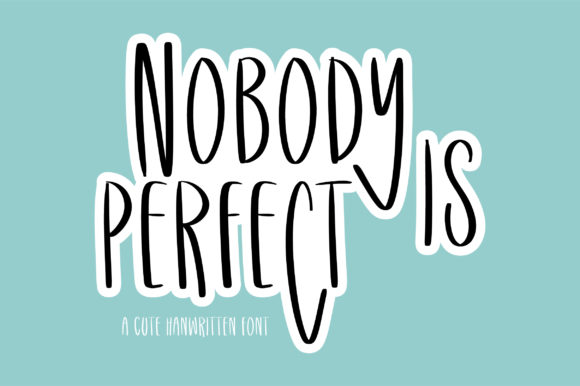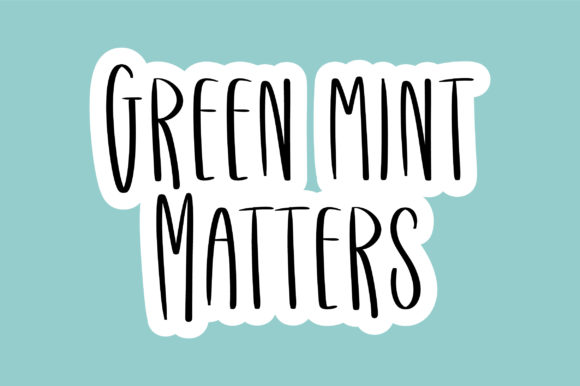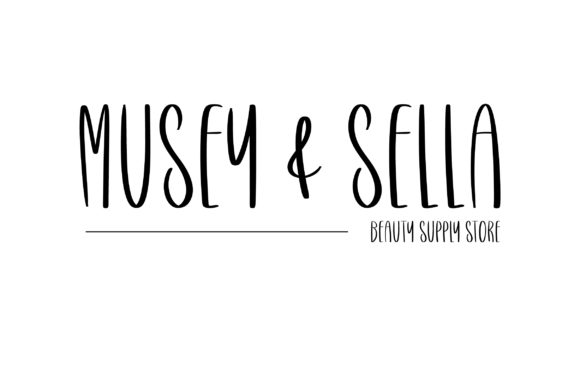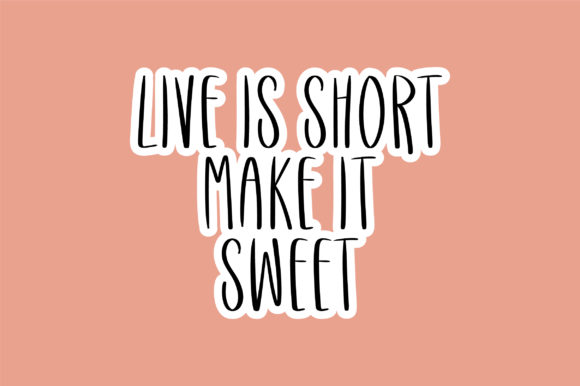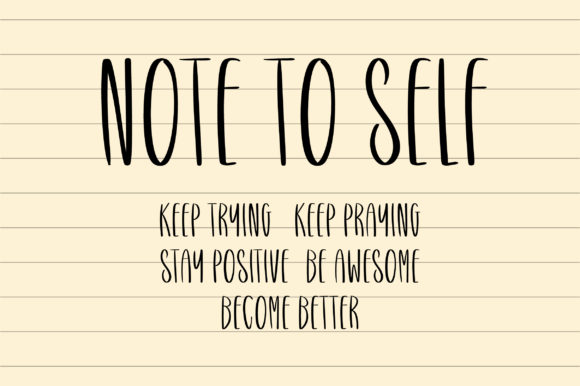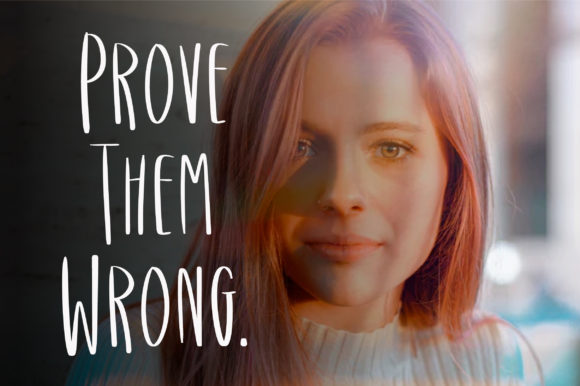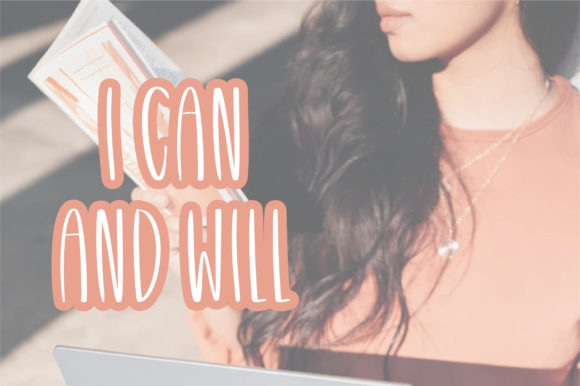
Nobody is Perfect Font
About Nobody is Perfect Font
Nobody is Perfect is a cheerful and friendly handwritten font. It comes packed with cute extra doodles and it will elevate a wide range of design projects to the highest level, be it branding, headings, wedding designs, invitations, signatures, logos, labels, and much more!